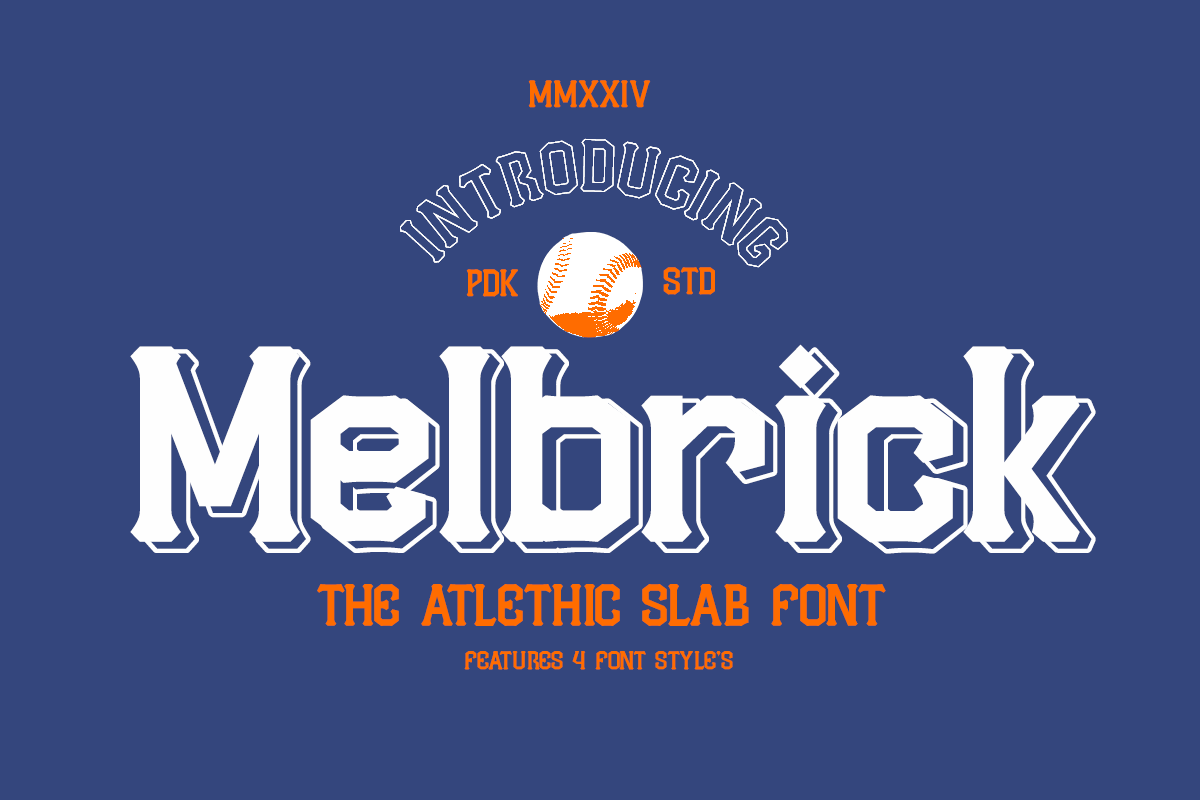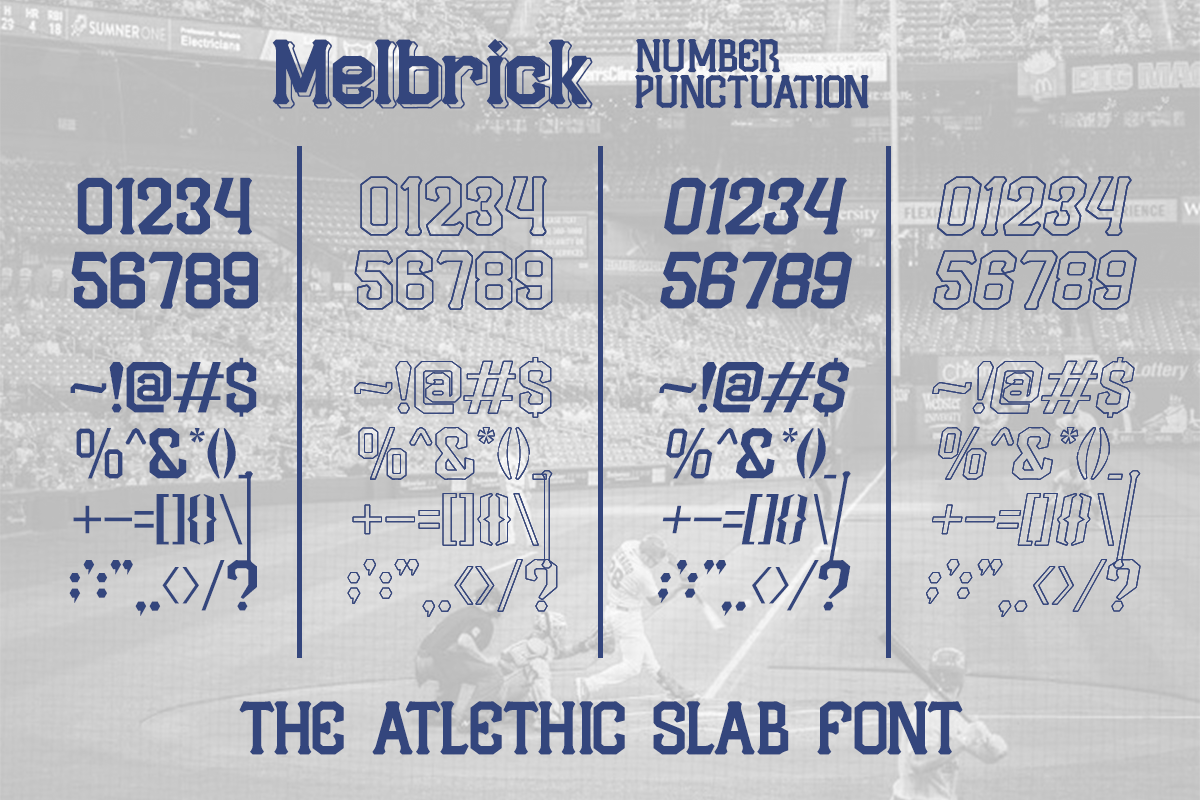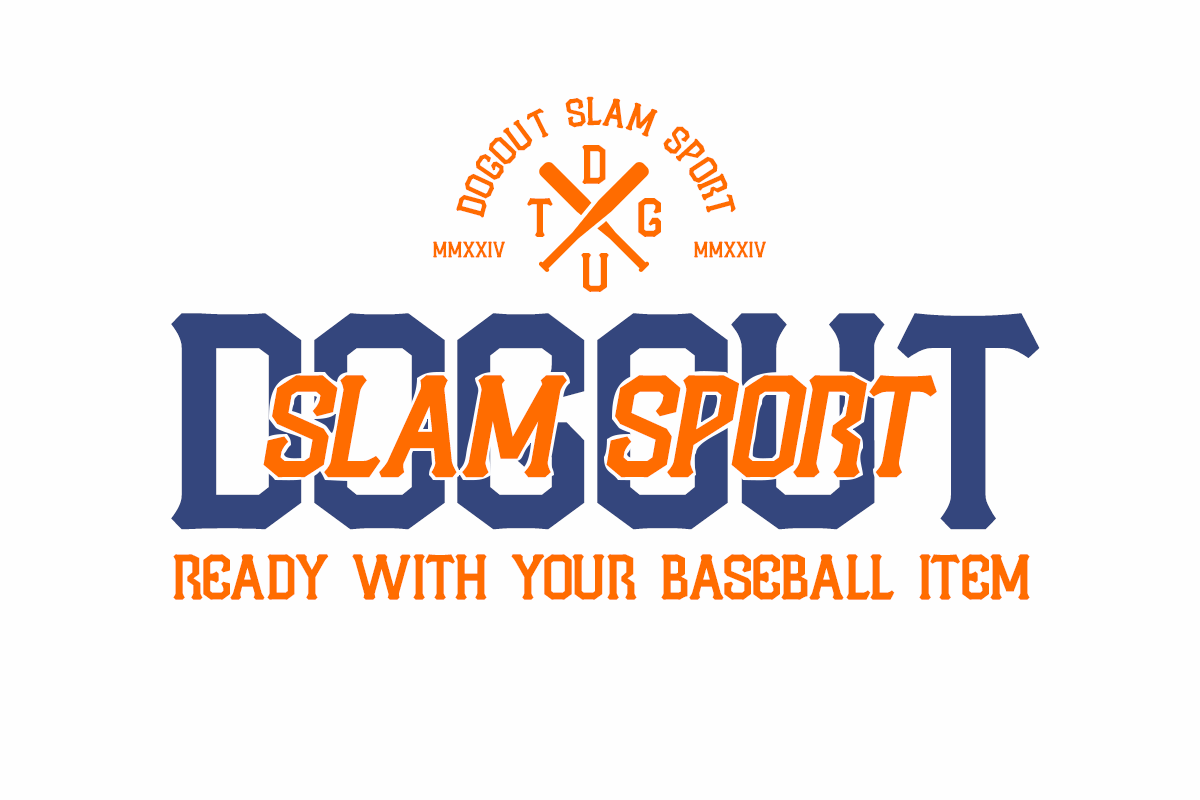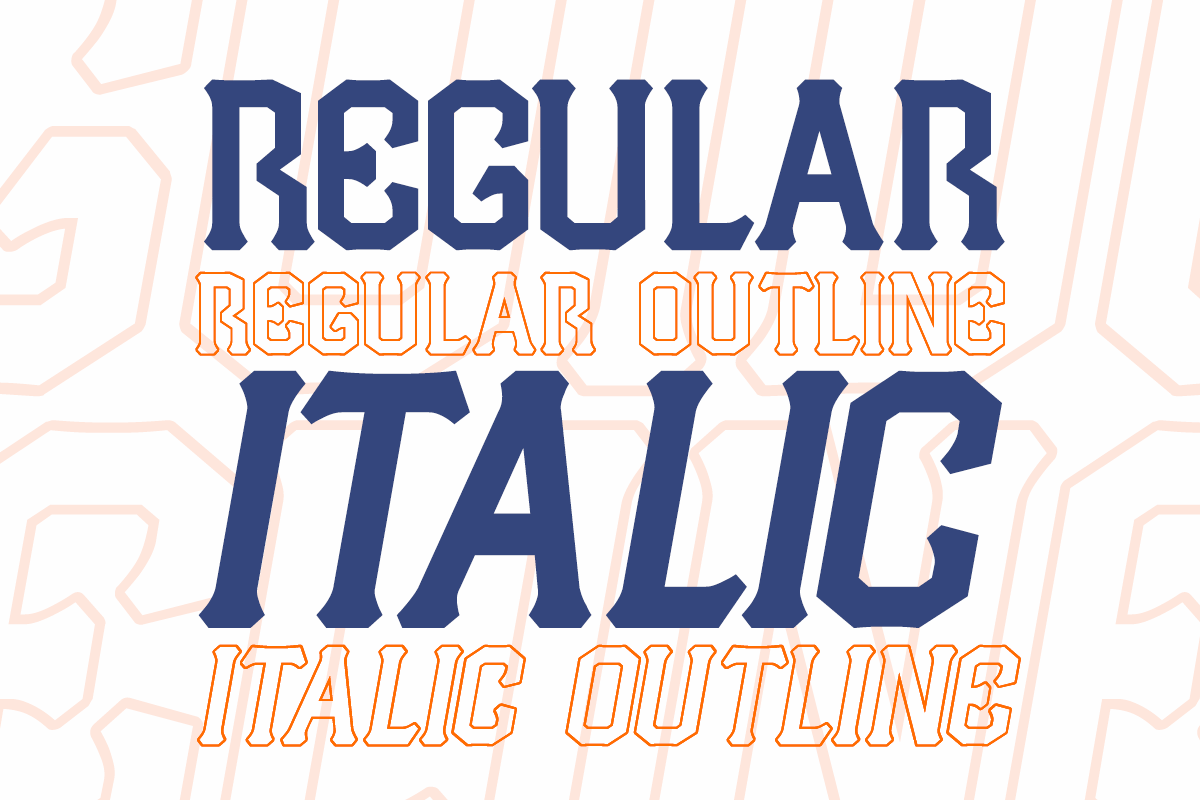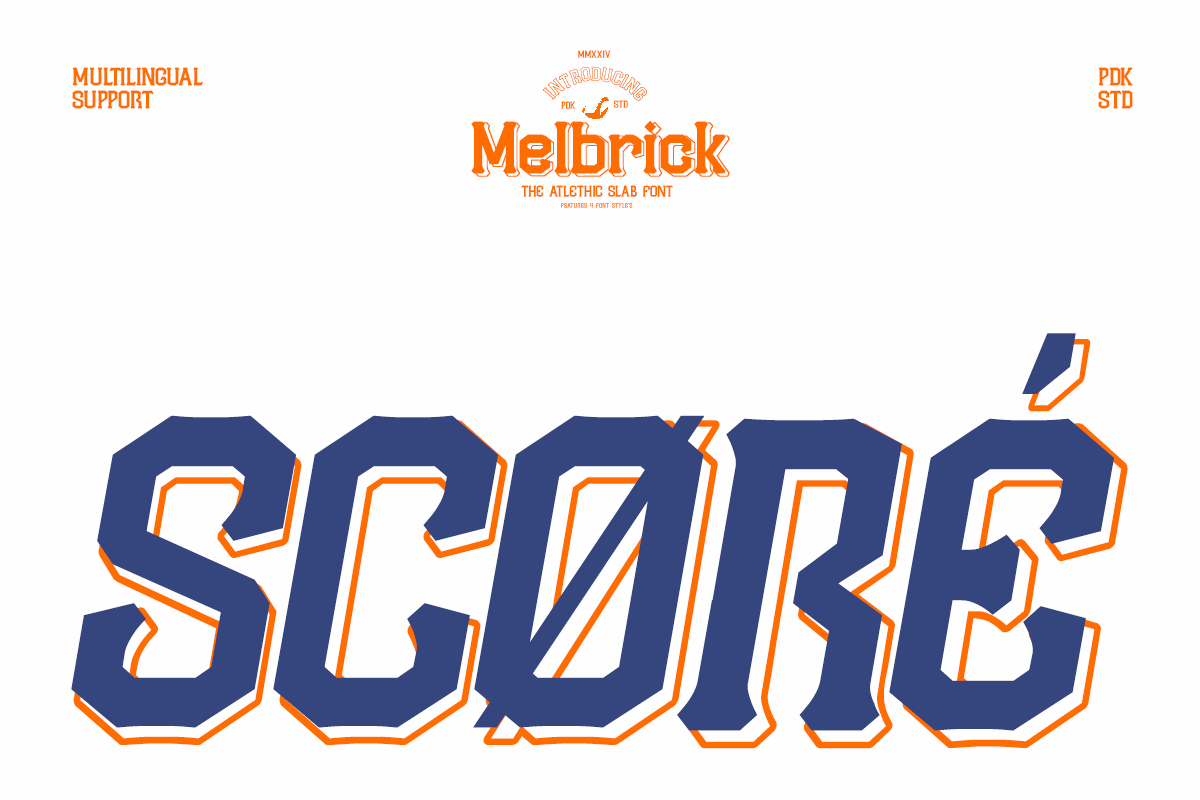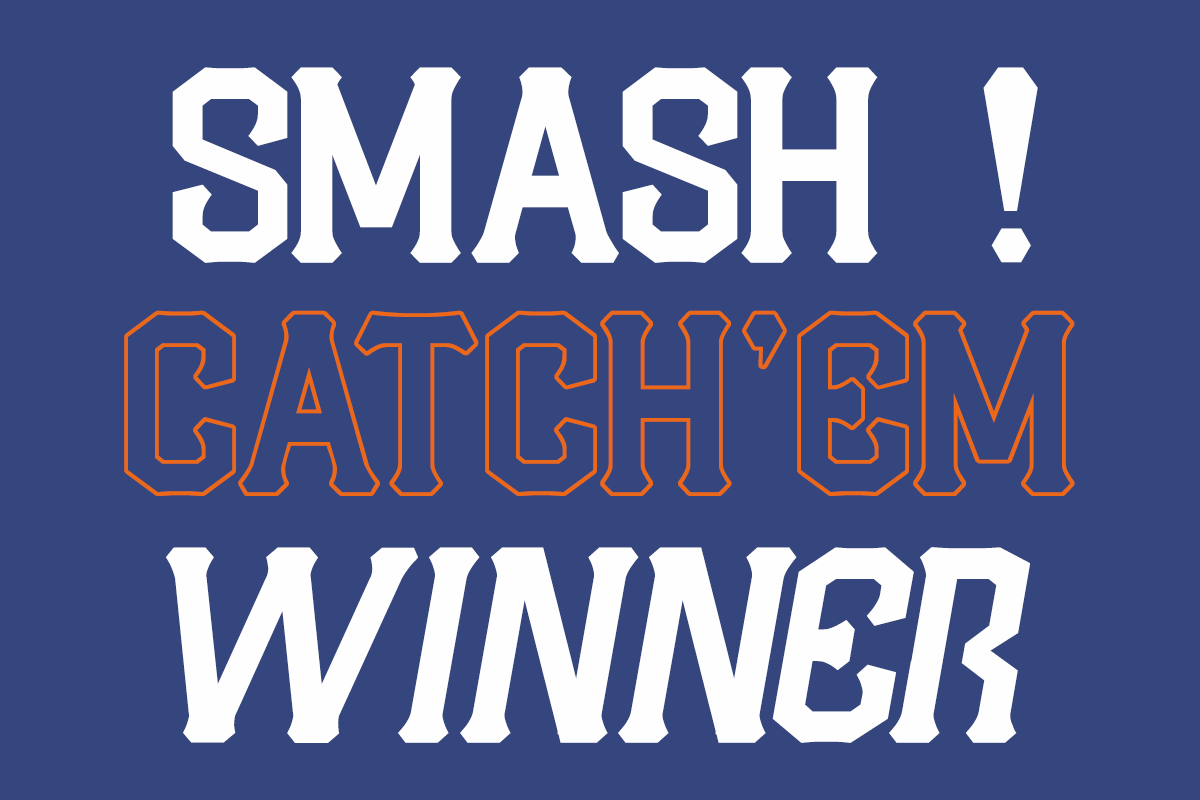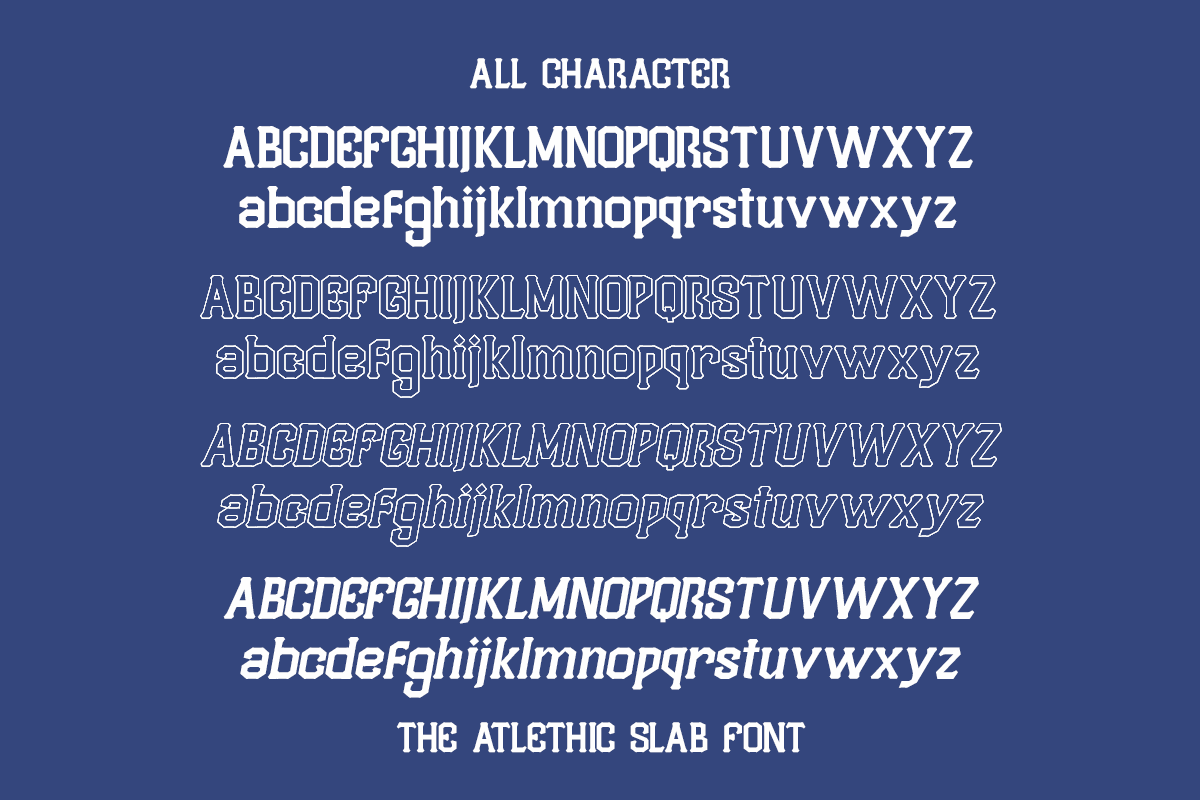
Melbrick – Baseball Athletic Font
Introducing Melbrick, The athletic slab font featuring 4 unique styles. Inspired by old western letters, Melbrick is here to bring boldness and confidence to your designs!
Melbrick is an athletic slab font that combines the rugged charm of the old west with a modern athletic edge. With 4 unique styles: Regular, Italic, Outline, Italic Outline it’s perfect for sports logos, branding and posters
This font includes both upper and lowercase vintage characters, each with distinct renders that add authenticity and a naturally worn look. Melbrick stands out with its strong and dynamic presence, making it an ideal choice for various creative projects.
*Offers 4 styles: Regular, Italic, Outline, and Italic Outline.
*Unique letterforms
*Multilingual support